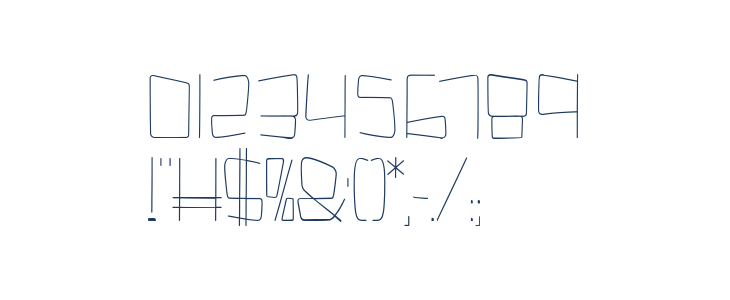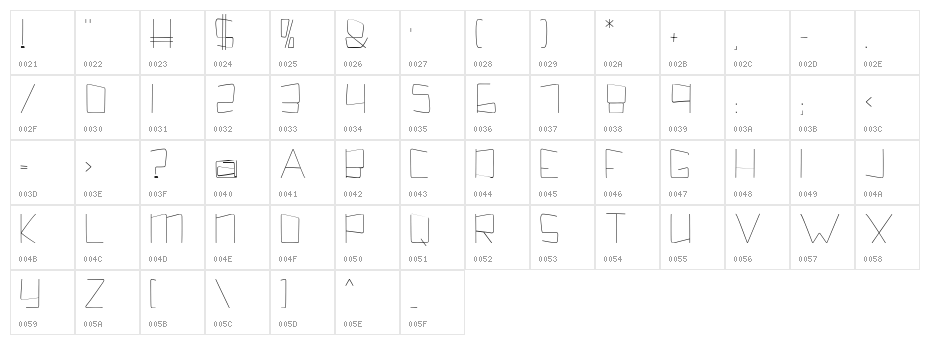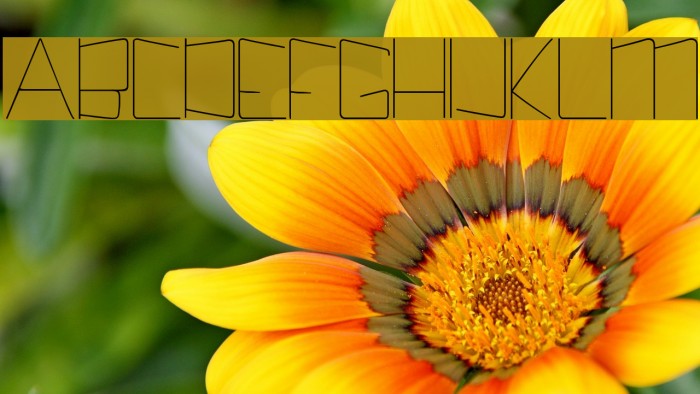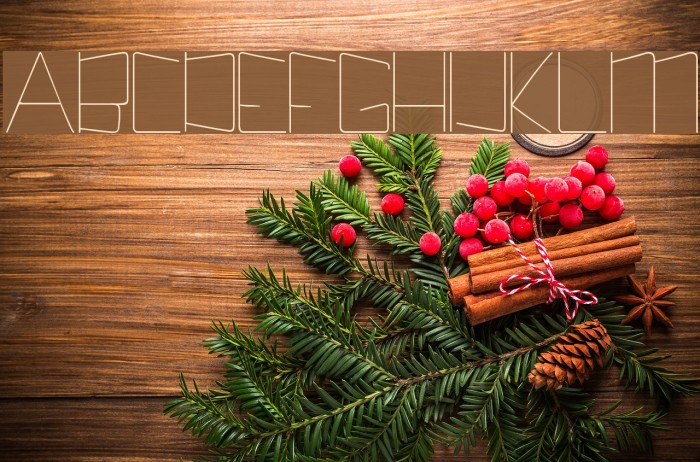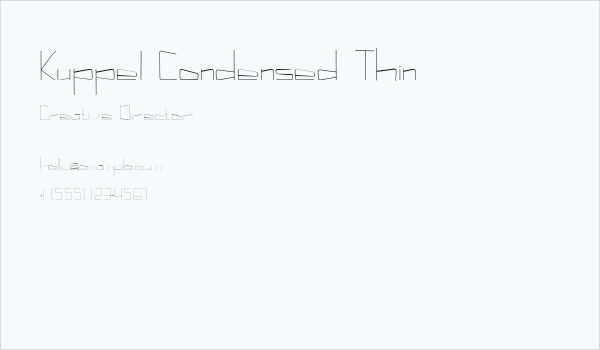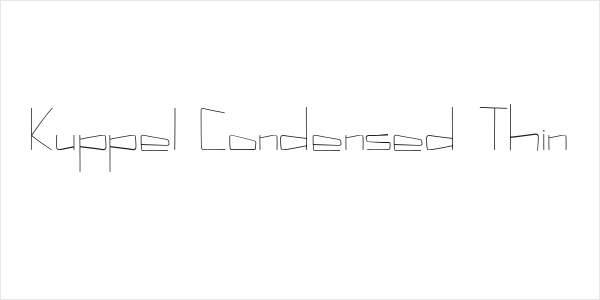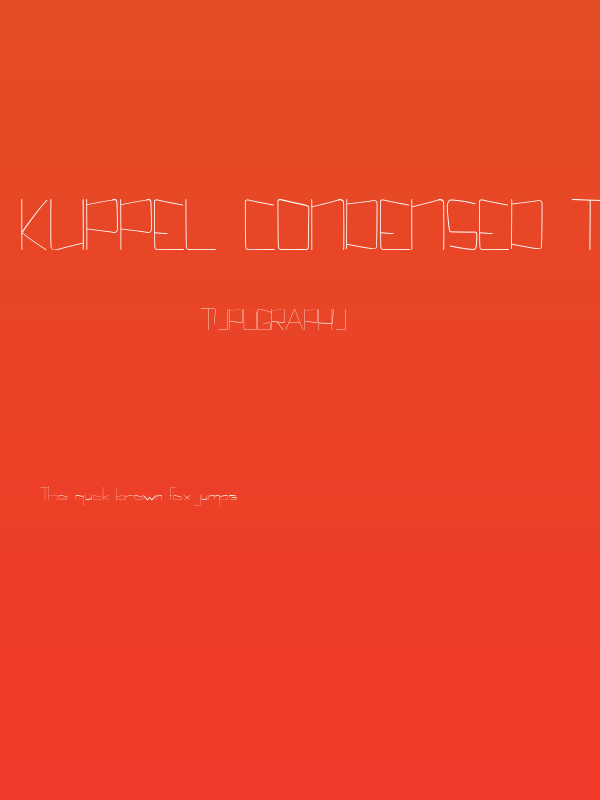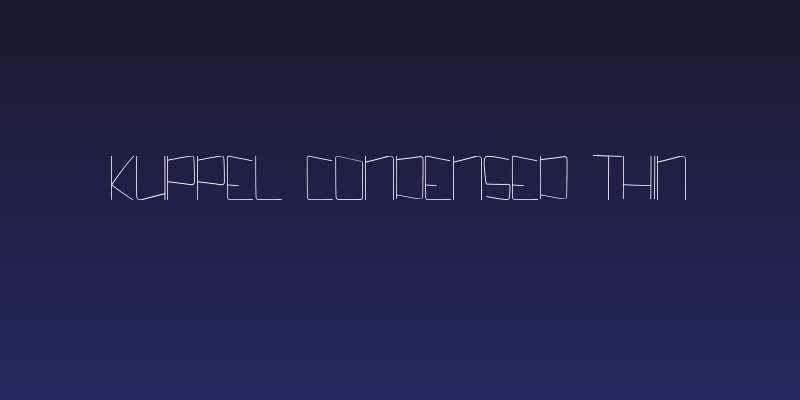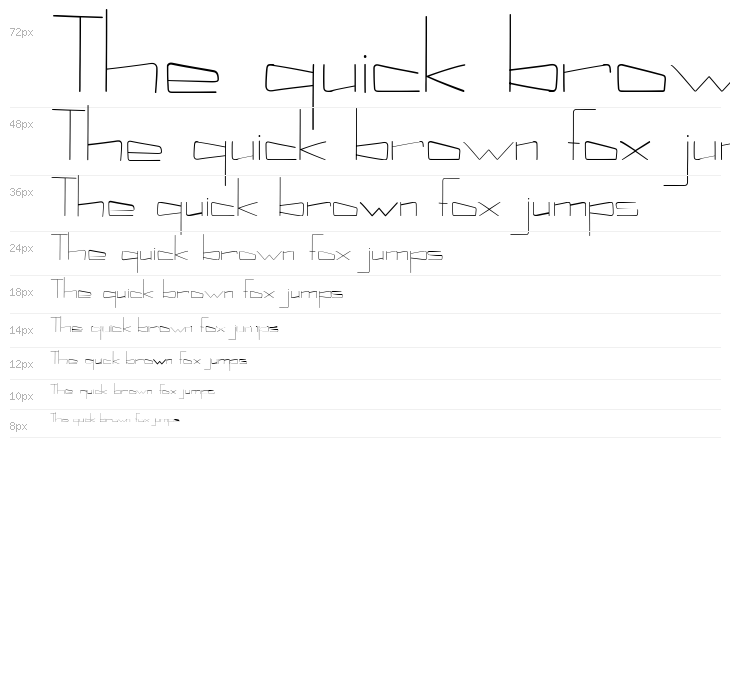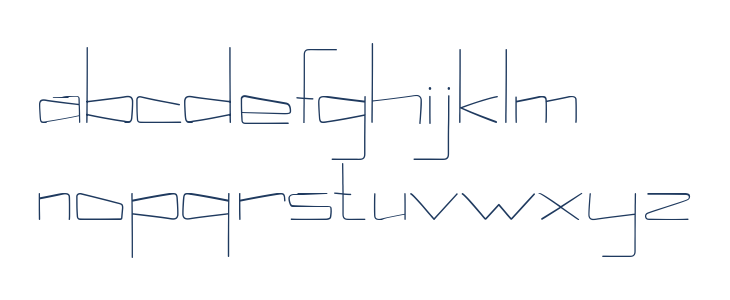
Kuppel Condensed Thin Font
Kuppel Condensed Thin Description
This font features a minimalist and geometric design, characterized by its thin, linear strokes and condensed letterforms. The uppercase and lowercase letters maintain a consistent height, contributing to a uniform appearance. The numerals and special characters follow the same design principles, ensuring cohesion across all glyphs. The font's simplicity and clarity make it suitable for modern and contemporary design projects, where a clean and unobtrusive typeface is desired. Its condensed nature allows for efficient use of space, making it ideal for headlines and titles.